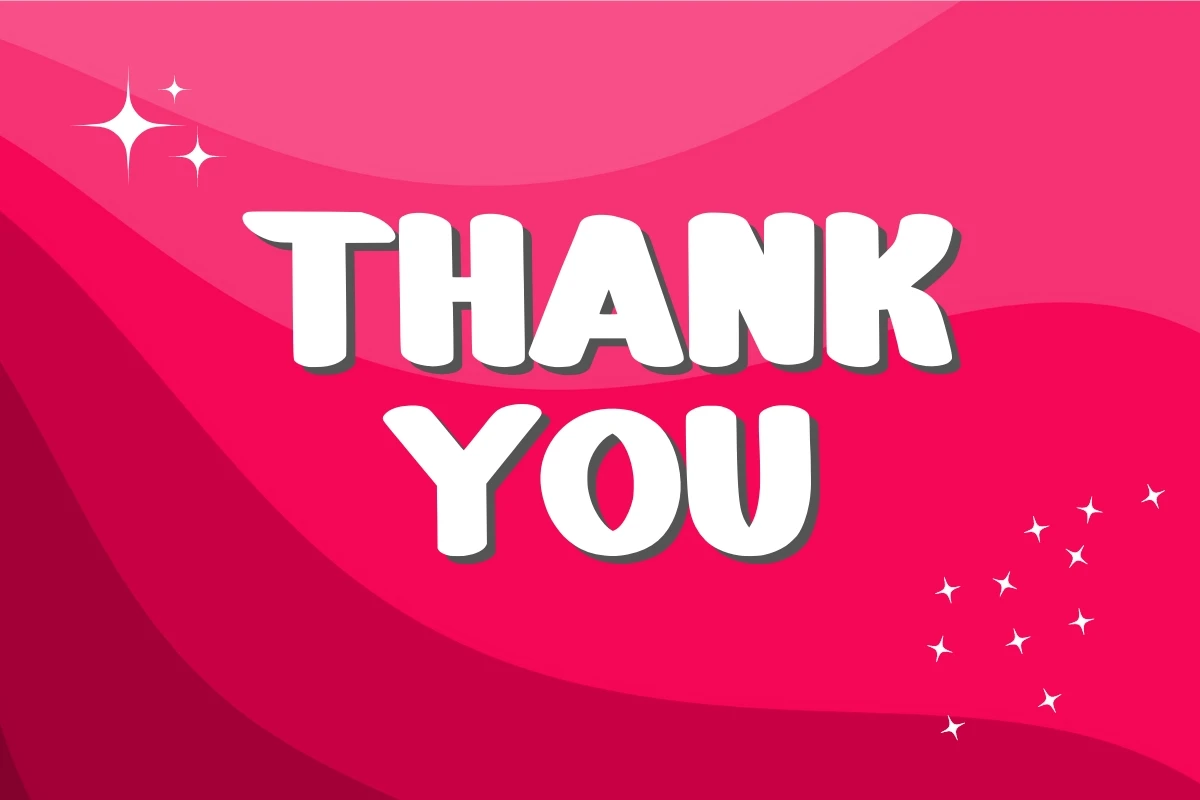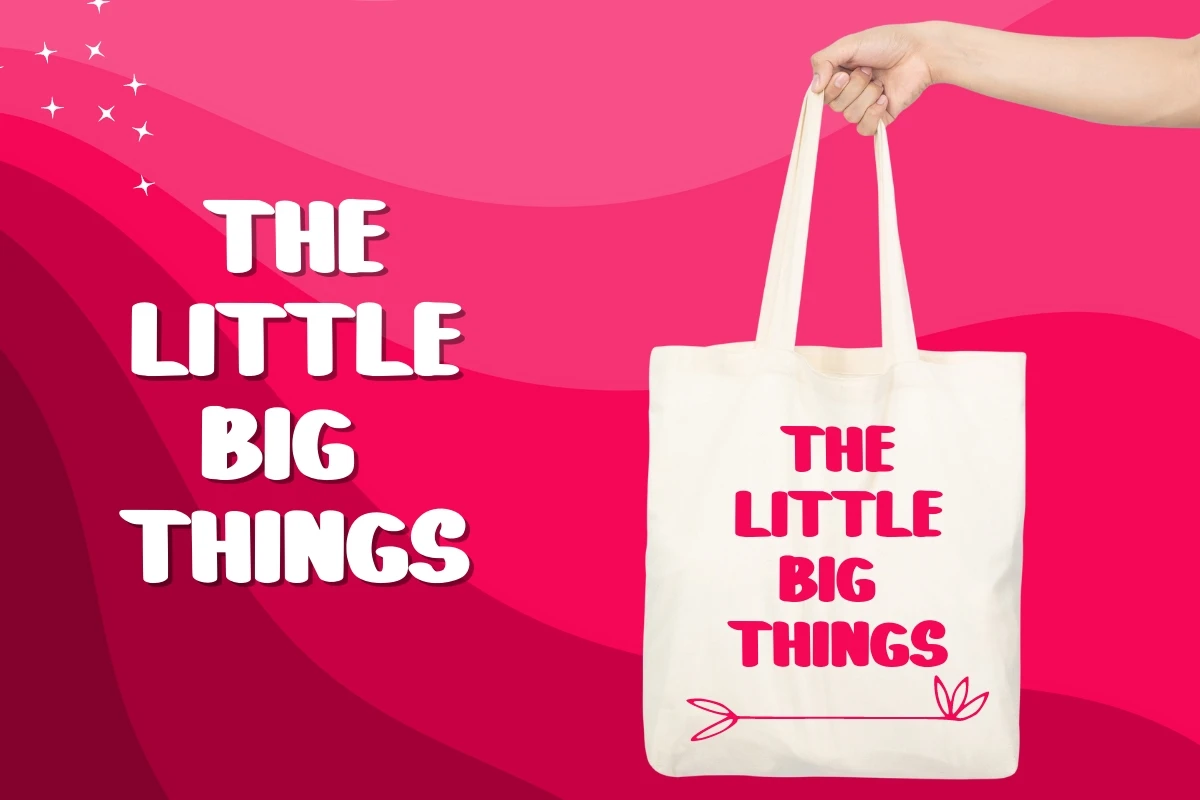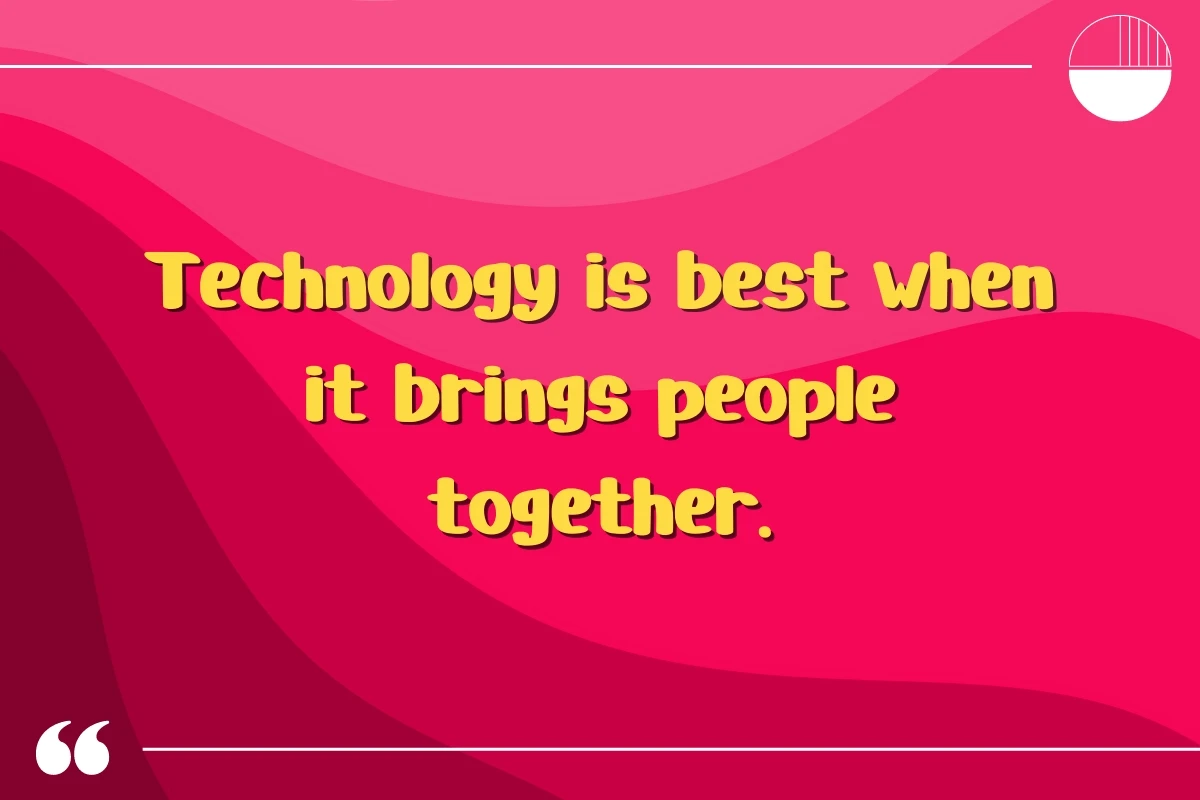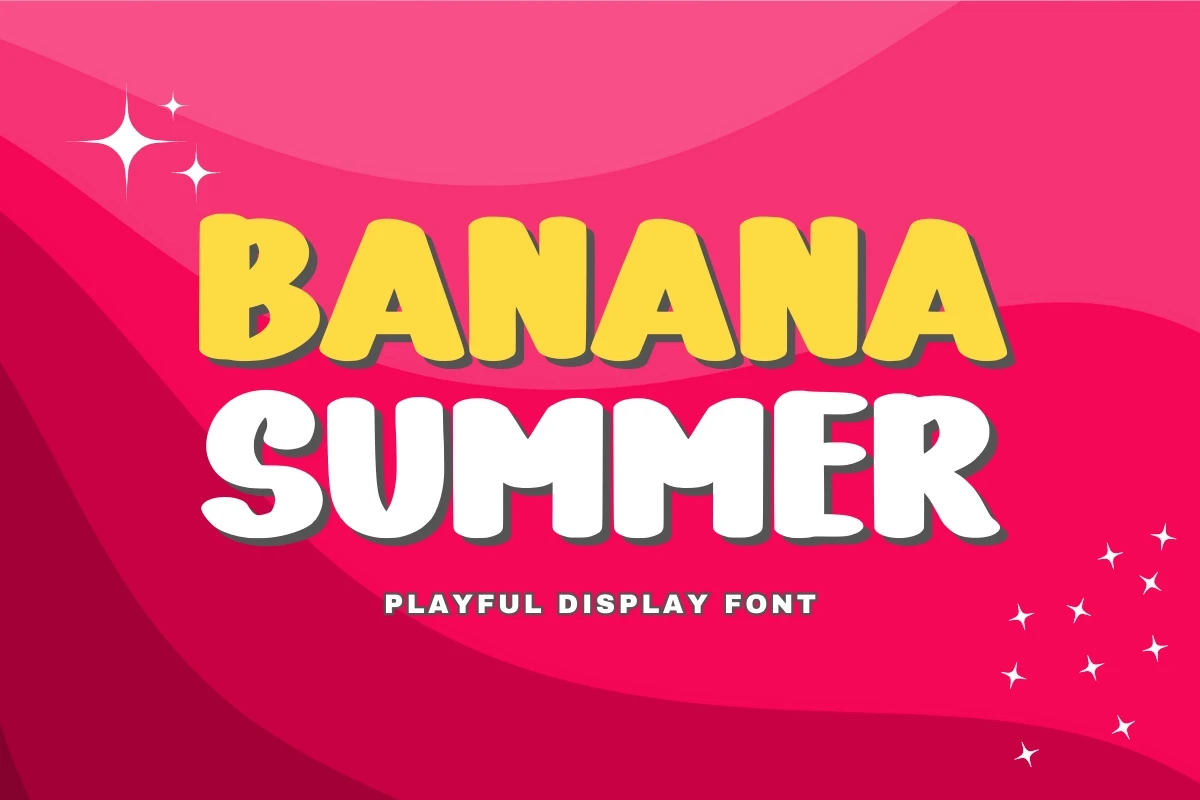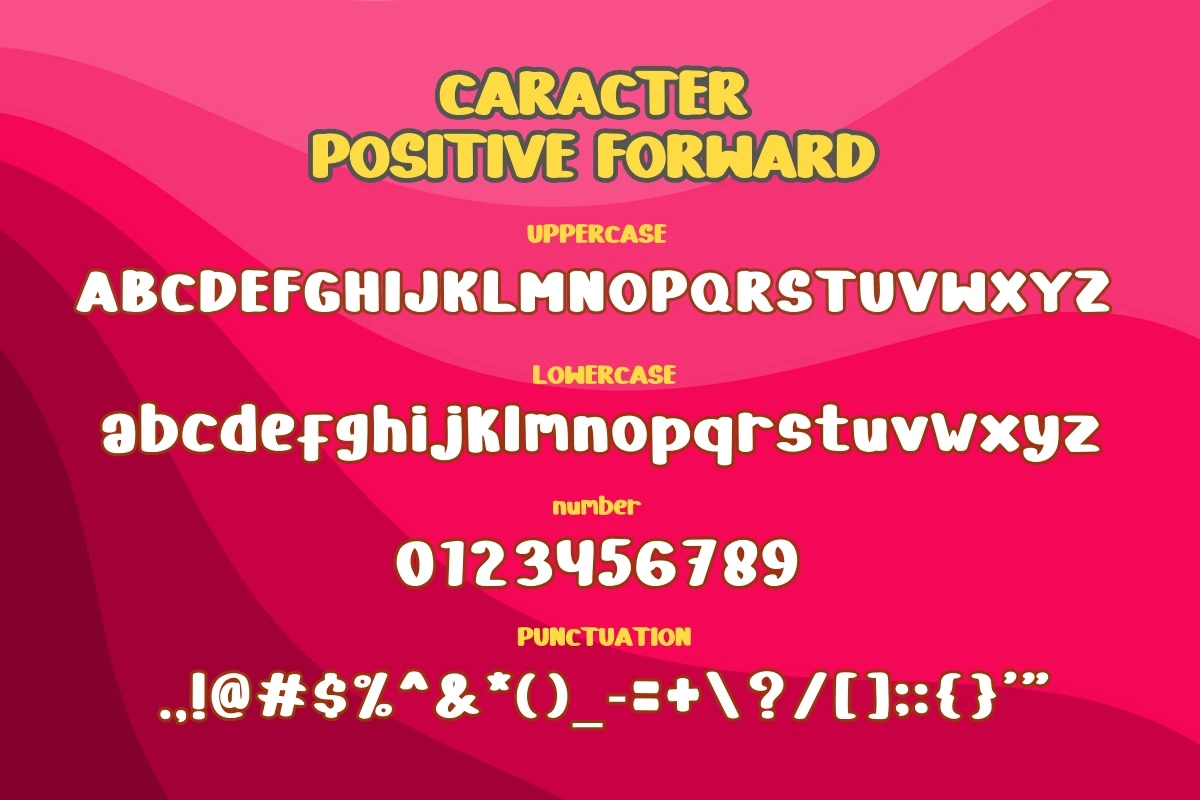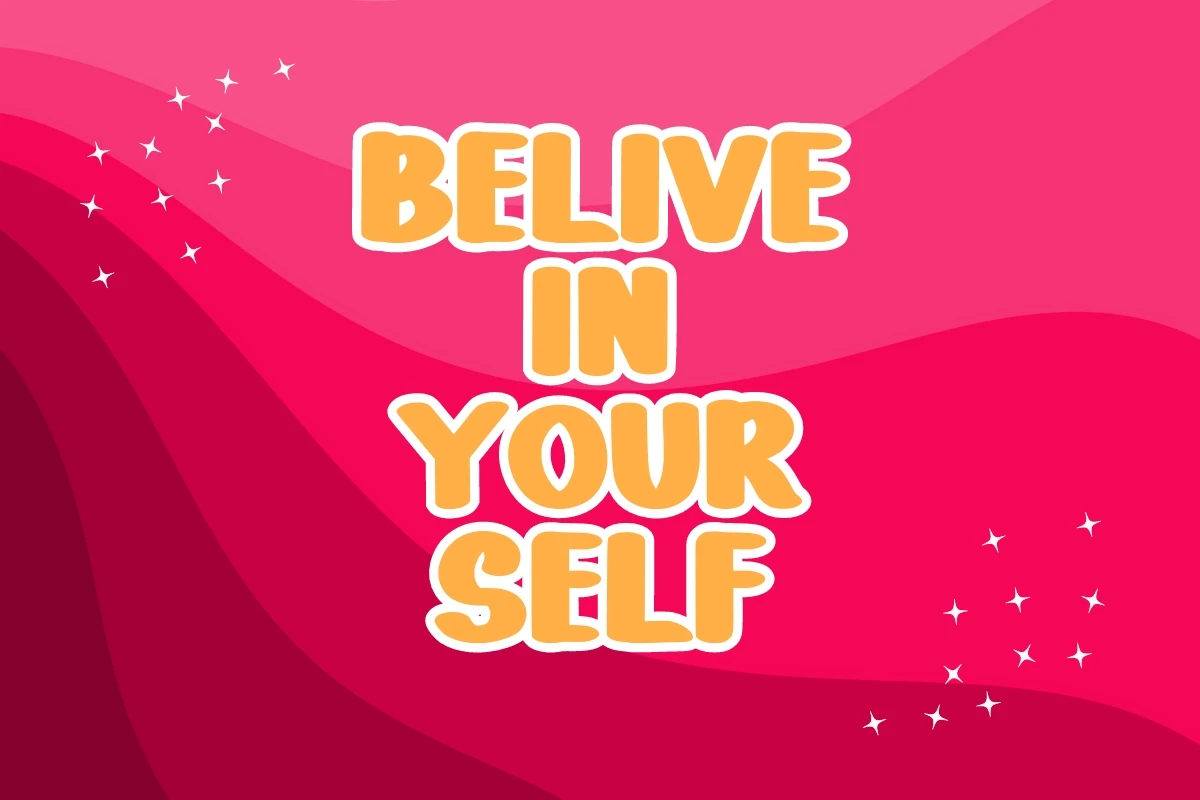
Wahana Awan is a fun and quirky bubble display font that brings back the spirit of the retro era. Their cute curves and funky shapes exude a sense of nostalgia and excitement. Perfect for disco-inspired designs, party invitations, and retro-themed projects, it adds a touch of unique style and fun to any creative endeavor.